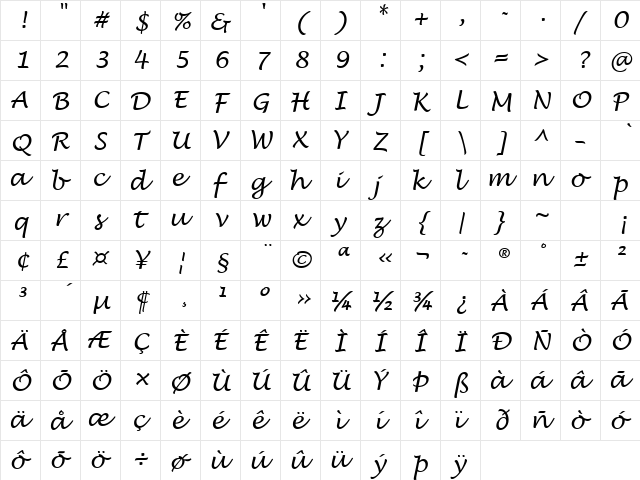
Lucida Handwriting Italic
Design Context for Lucida Handwriting Typeface
Lucida Handwriting flows with the natural rhythm of handwritten lettering, making it ideal for designs that call for warmth and personal expression.
Font Pairing: Combine Lucida Handwriting with a simple geometric sans for maximum contrast — the tension between flowing curves and clean structure is a classic typographic pairing.
Pro Tip: Pair Lucida Handwriting with a clean sans-serif for supporting text. The contrast between fluid script and geometric structure creates an elegant typographic hierarchy.